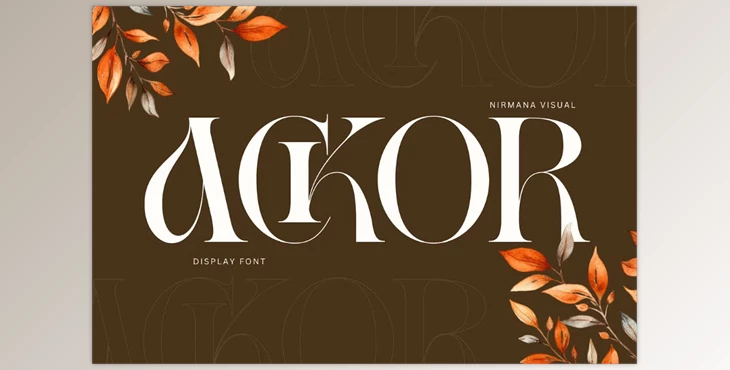
Ackor - Branding Logo Font:
Ackor is a vintage serif display font blending classic elegance with bold character. With refined letterforms, exaggerated serifs, and balanced strokes, it offers sophistication and readability. Ideal for branding, editorial design, and creative projects, Ackor evokes timeless nostalgia while remaining versatile. Perfect for headlines, logos, and signage, it adds charm and authority to text.